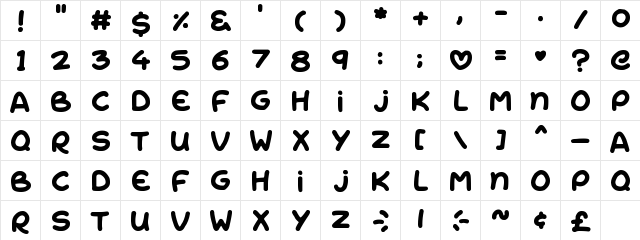
Rise & Shine Regular
Design Context for Rise & Shine Typeface
Rise & Shine is a composed and adaptable typeface that performs quietly and consistently across a wide range of design contexts.